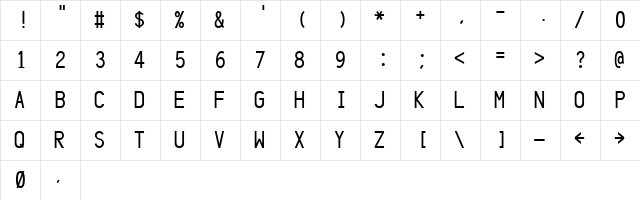
Baloo Regular
| Foundry | Alex Bashkatov |
Design Context for Baloo Typeface
Baloo takes a measured approach to typography — its balanced proportions and neutral character make it a reliable workhorse for both digital and print work.
Pro Tip: Use Baloo in both headline and body roles to test its range before committing to a single application.